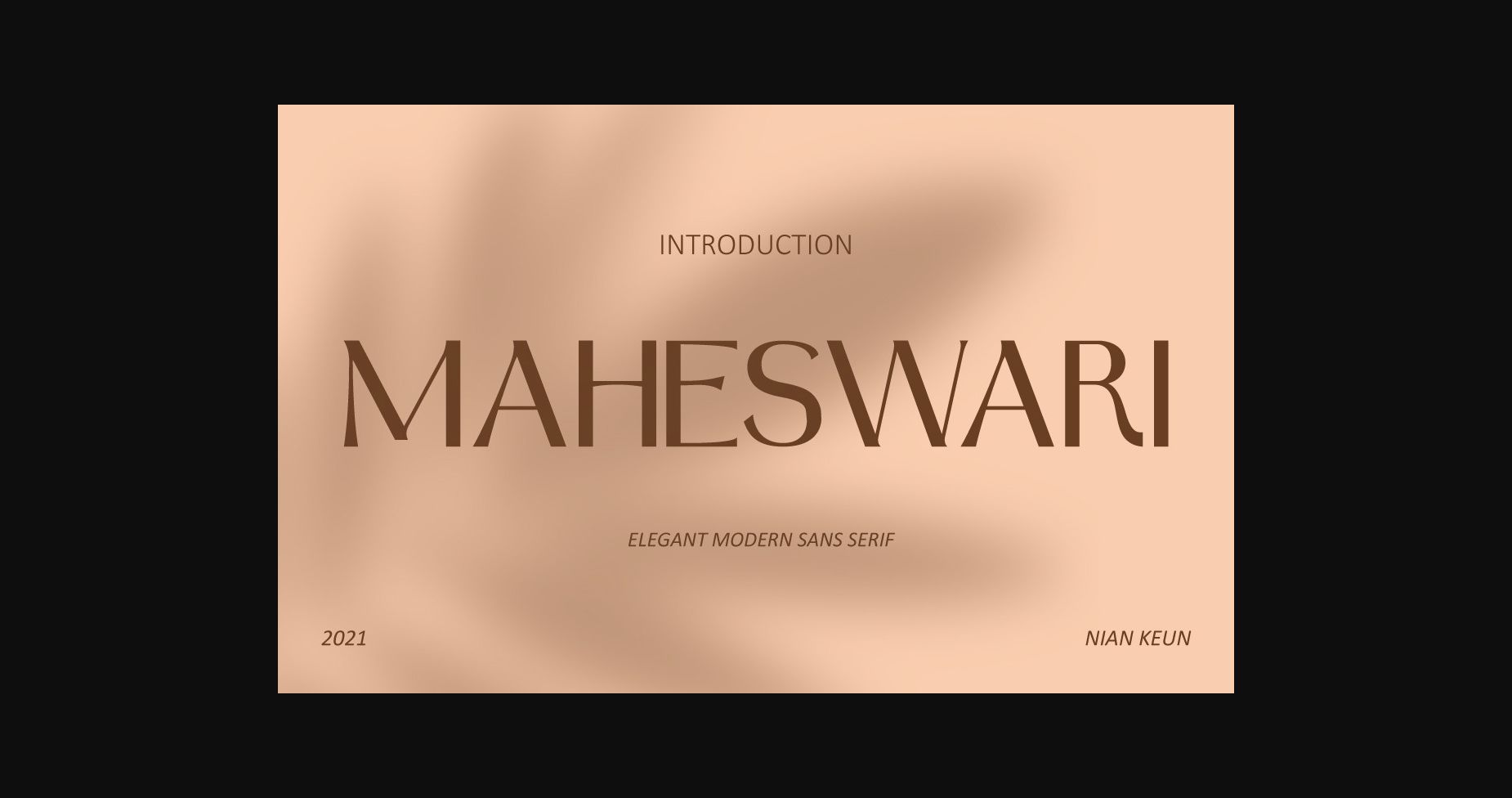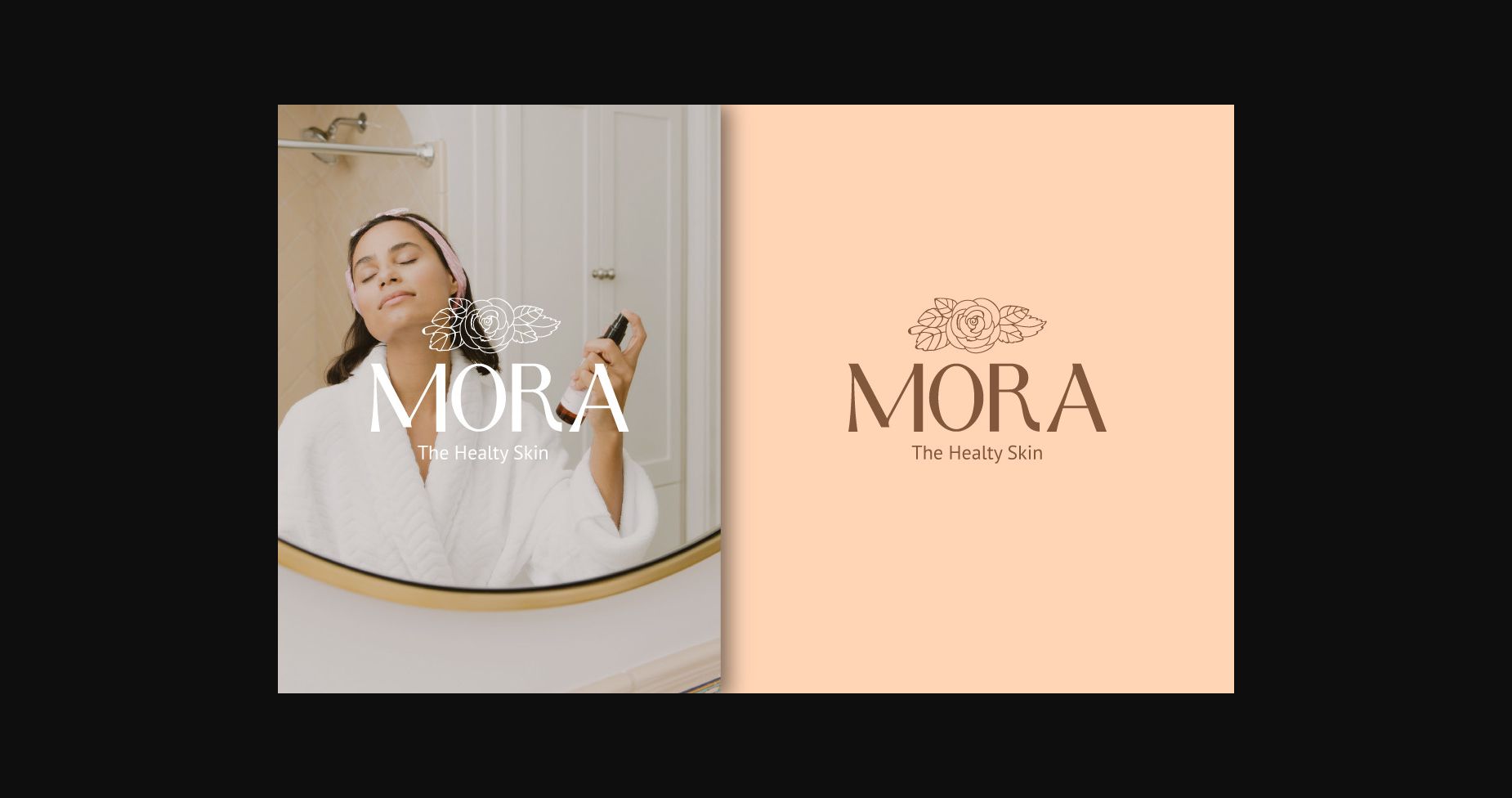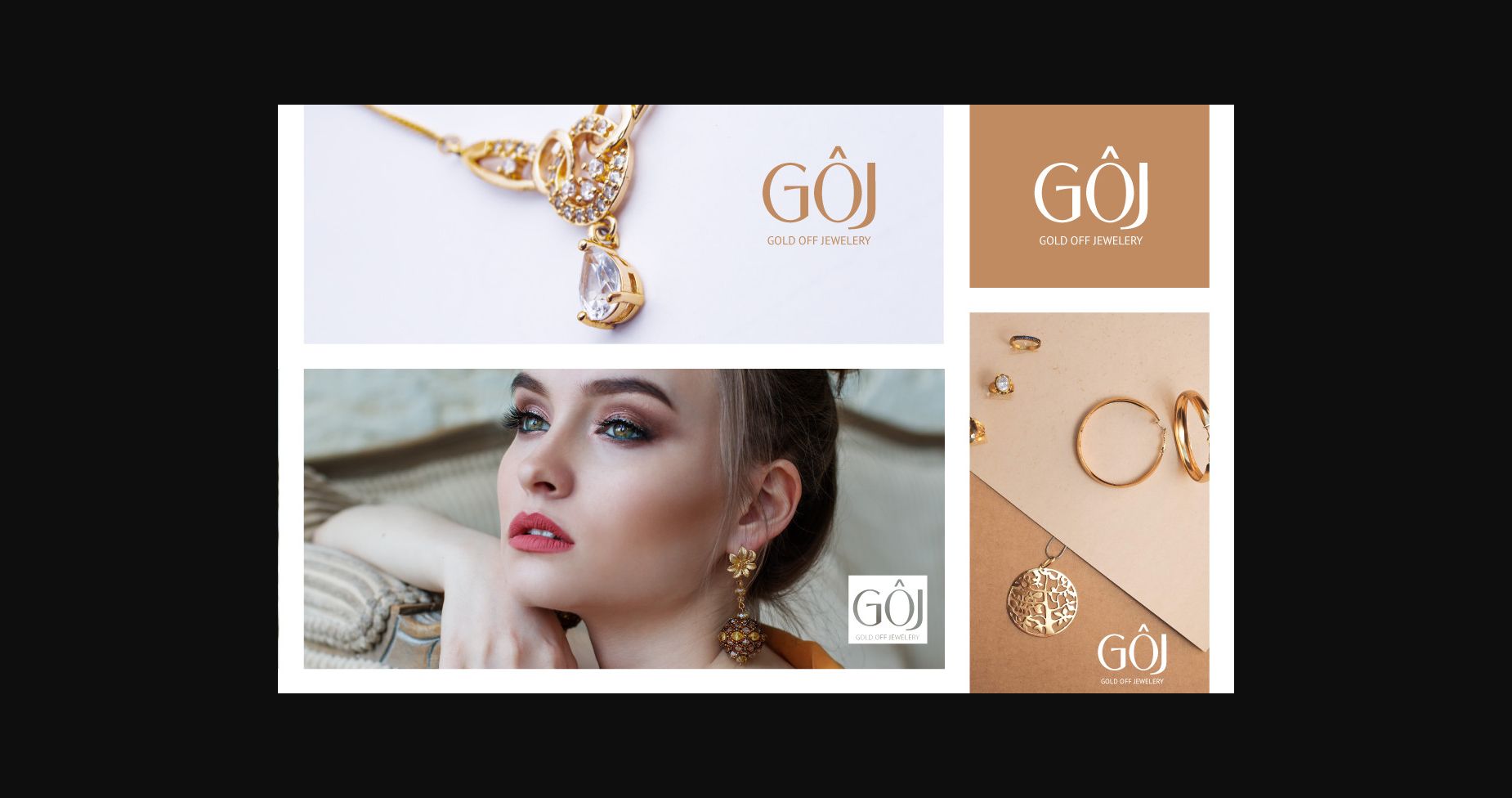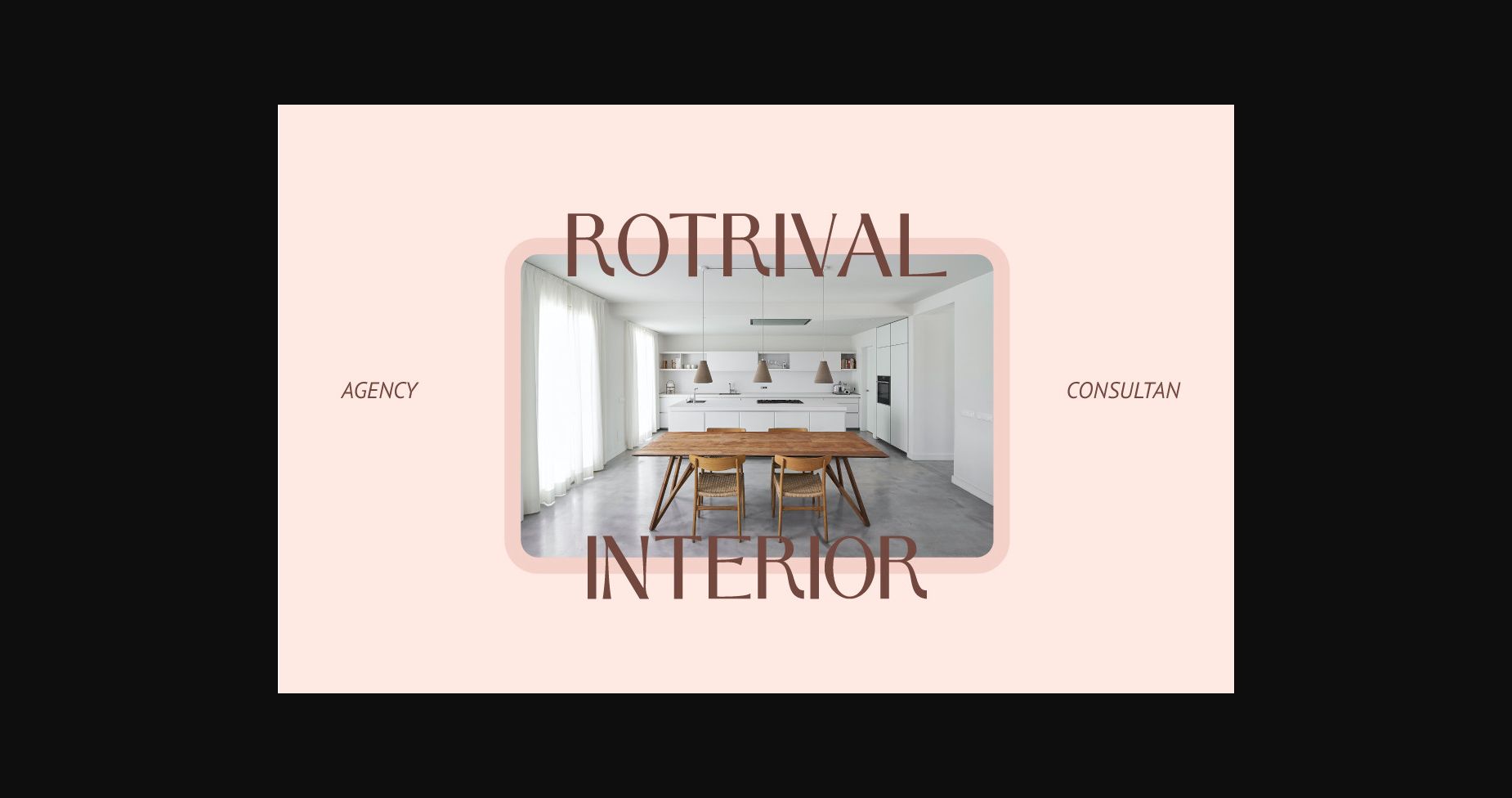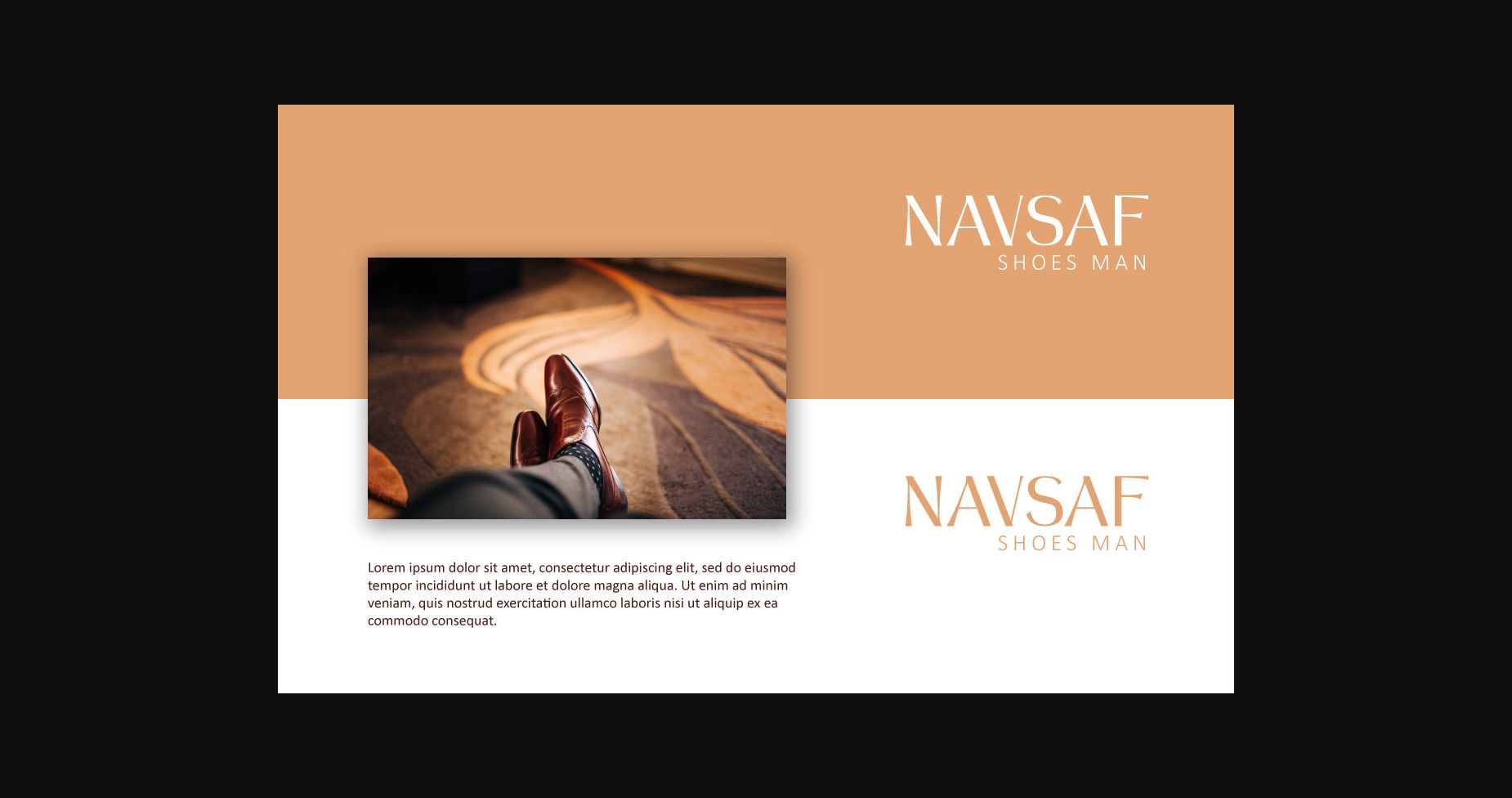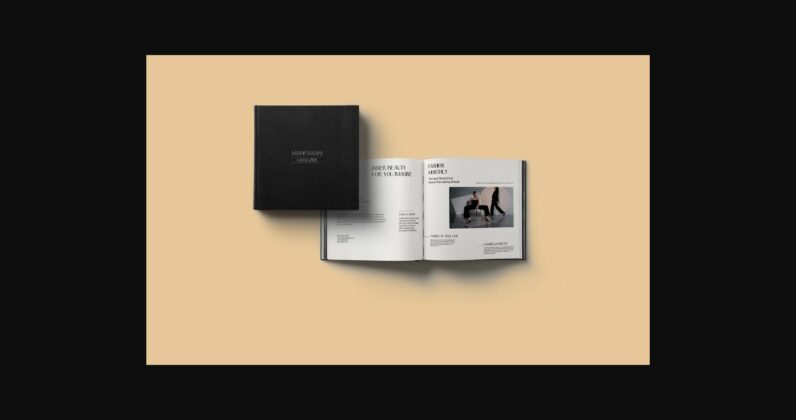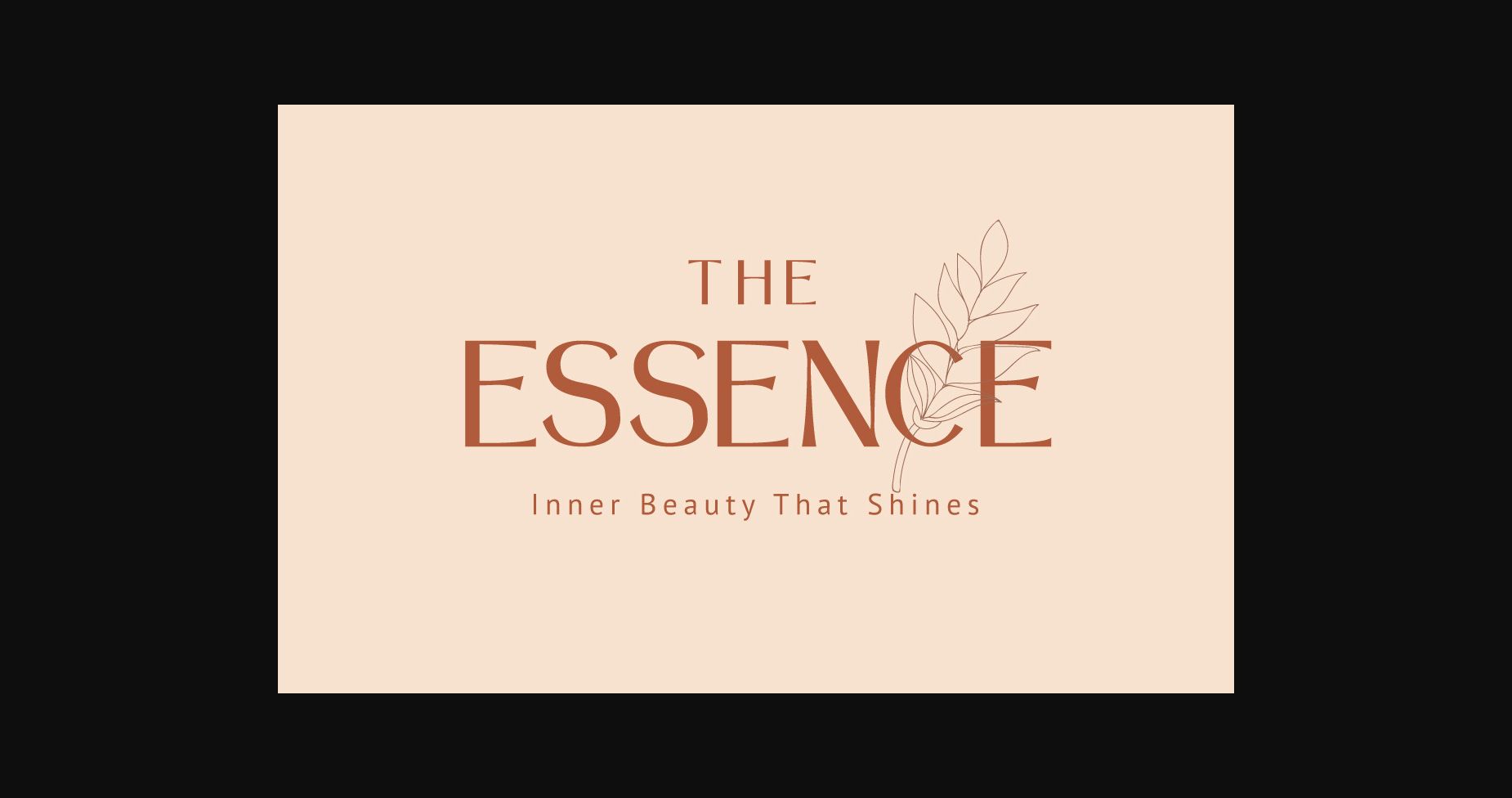
HomeSans Serif FontsMaheswari Font Sans Serif Fonts Maheswari Font FacebookXPinterestWhatsApp 1 of 11 ... Maheswari Font Poster 2... Maheswari Font Poster 3... Maheswari Font Poster 4... Maheswari Font Poster 5... Maheswari Font Poster 6... Maheswari Font Poster 7... Maheswari Font Poster 8... Maheswari Font Poster 9... Maheswari Font Poster 10... Maheswari Font Poster 11... About Maheswari Font Maheswari is a cool, modern and authentic sans serif font. This versatile script font has a wide spectrum of applications ranging from greeting cards to headlines. DOWNLOAD NOW People also explored Belgian Signature Font Australia Font Augustine Font Christmas of Canada Font Thrusters Realistic Mock-ups on Vintage Background Allexa Font Amsterdam Font Secret Heart Font 331 0 TagsMaheswari Font Previous articleSansburg FontNext articleMasley Font LEAVE A REPLY Cancel reply Comment: Please enter your comment! Name:* Please enter your name here Email:* You have entered an incorrect email address! Please enter your email address here Website: Save my name, email, and website in this browser for the next time I comment. Personal Use Free Girls Personal Use Free Read more about this font Loving Personal Use Free Read more about this font Pouline Personal Use Free Read more about this font Setta Personal Use Free Read more about this font BLOG Fonts That Capture the Spirit of New York City New York City is more than just a place—it’s an experience, a rhythm, a visual language... How to Cut Any Font on Cricut: Convert a Font to SVG (Free) How to Install and Use Fonts on Windows, macOS, and Web Projects Best Fonts for T-Shirt Design – Top 2025 Picks